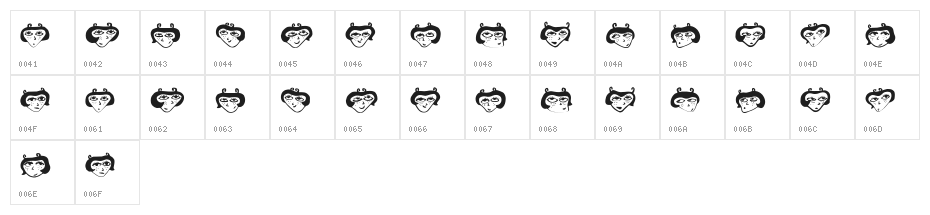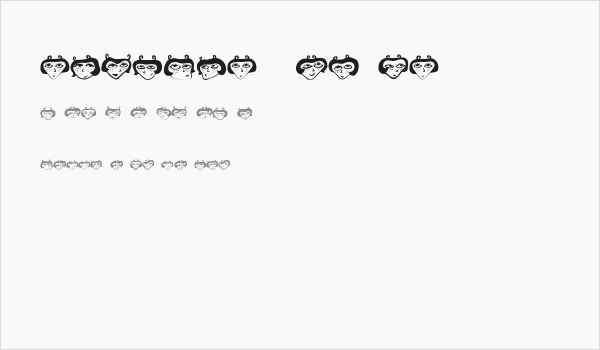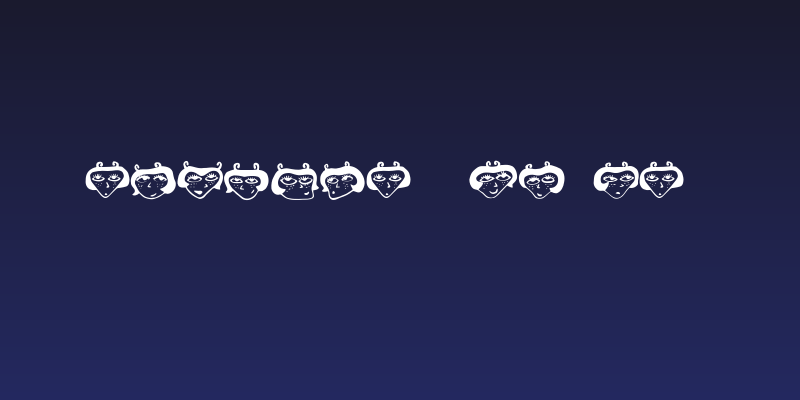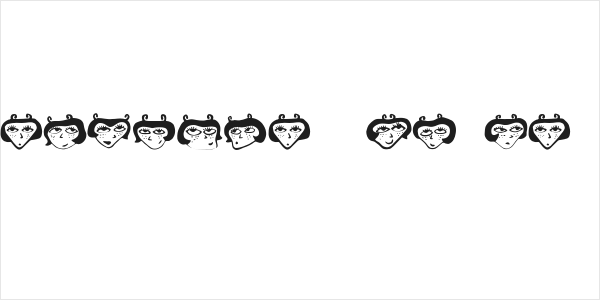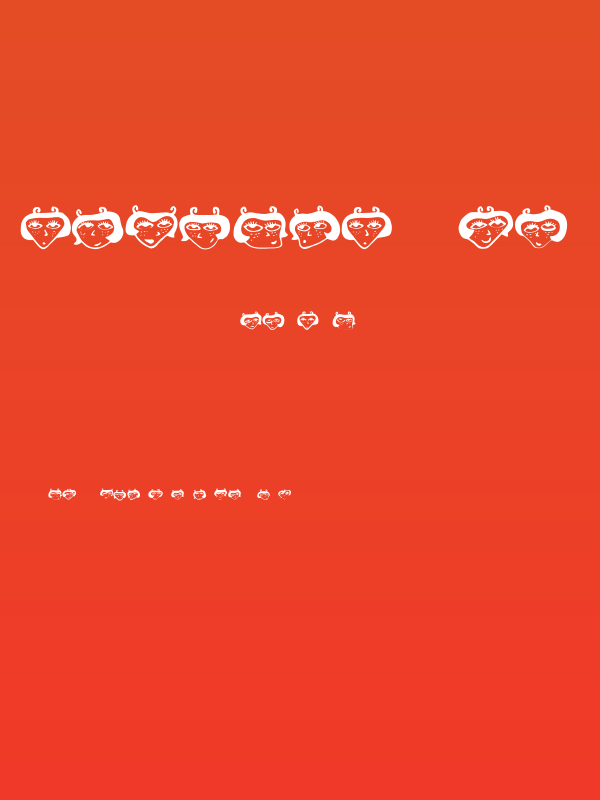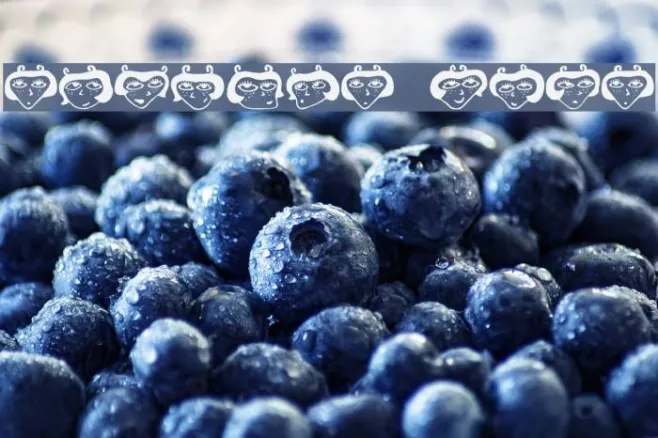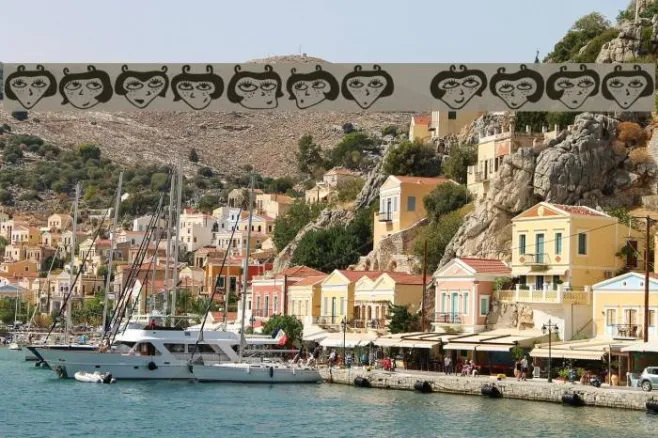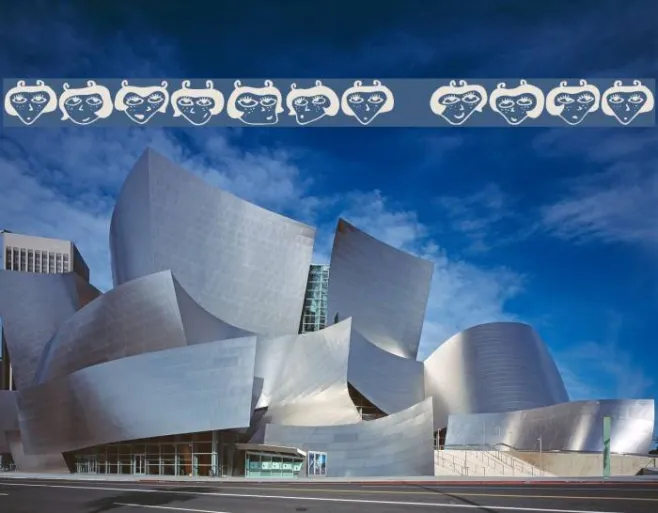
Anichka Regular Font
Anichka Regular Description
A decorative dingbat font featuring hand-drawn, whimsical cartoon faces with varied expressions, each character represented by a unique illustrated head. The style is playful and artistic, with bold outlines and simple facial features.
| Overall Style | Decorative, Whimsical, Playful |
| Use Case | Illustrative elements, icons, borders, creative headings. |
| Proposed Projects | Children's books, playful branding, greeting cards, posters, creative crafts. |